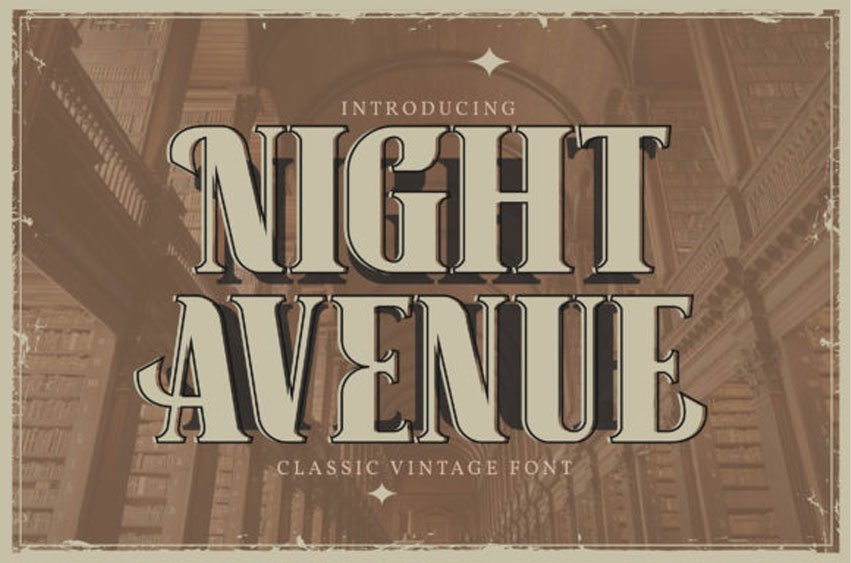
Night Avenue Font
Night Avenue Font is a bold and assertive serif font. No matter the topic, this font will be an incredibly asset to your fonts’ library, as it has the potential to elevate any creation.